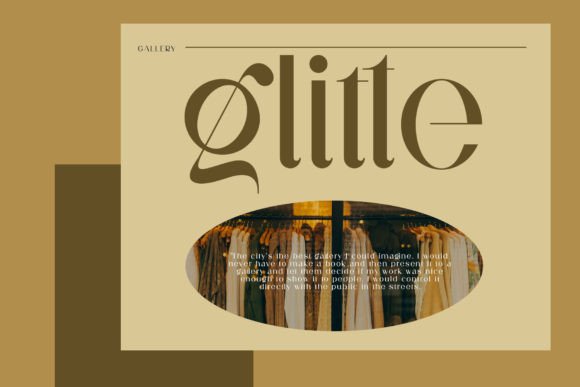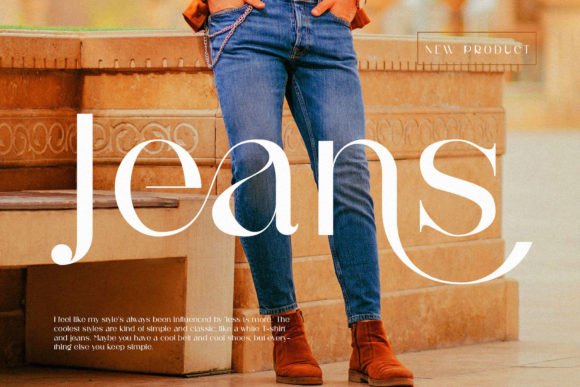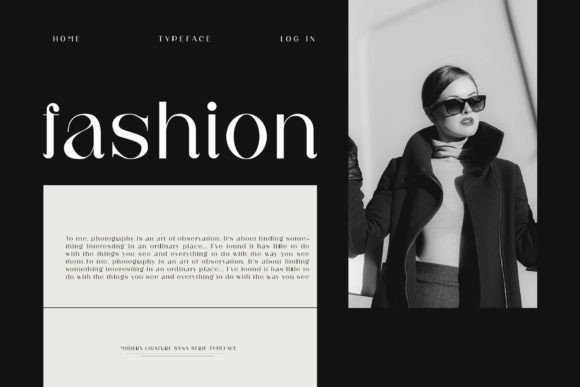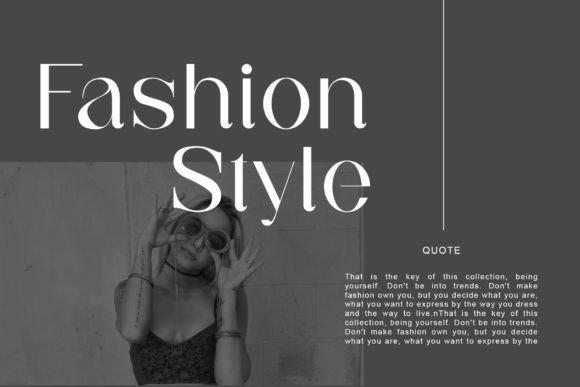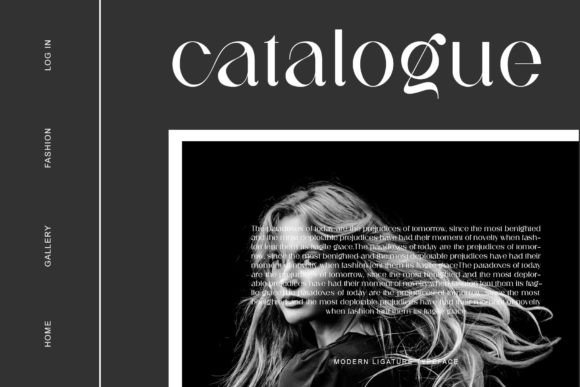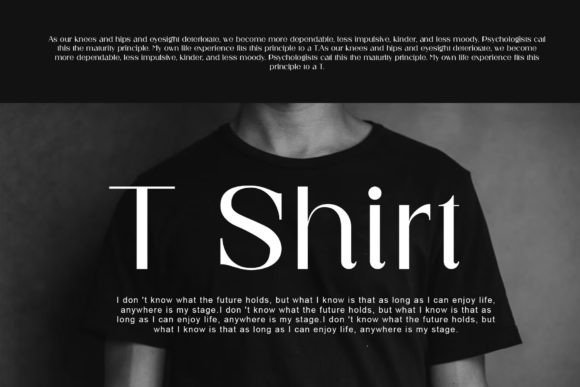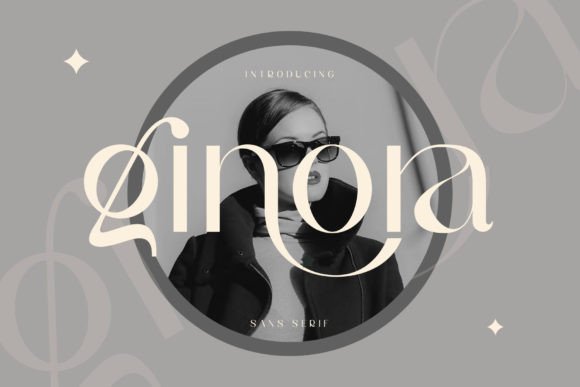
Ginora Font: Elevate Your Designs with Elegance and Class
In the world of typography, a font can make or break a design. For those seeking a touch of elegance, style, class, and modernity, the Ginora Font is an excellent choice. This elegant and classy sans-serif typeface is perfect for designers and crafters looking to elevate their work. In this article, we’ll explore the features and benefits of the Ginora Font and how it can enhance your designs.
A Modern yet Nostalgic Typeface
The Ginora Font is a unique blend of modern and nostalgic elements, making it an excellent addition to any design project. Its sans-serif design ensures a clean and minimalist look, while its classic undertones evoke a sense of timelessness. This font is perfect for designers who want to create a sense of sophistication and refinement in their work.
One of the standout features of the Ginora Font is its versatility. This font works great for a wide range of design projects, including logos, magazines, and social media graphics. Whether you’re creating a brand identity, a publication, or a social media post, the Ginora Font is an excellent choice. Its clean lines and elegant design make it easy to read and visually appealing.
Already Matched Up and Ready to Use
The Ginora Font is already matched up and ready to use, saving you time and effort in your design process. You can easily integrate it into your project and start creating stunning designs. This font is perfect for designers who want to streamline their workflow and focus on creating beautiful designs.
The Ginora Font is specifically designed for designers and crafters who need a touch of elegance, style, class, and modernity in their work. Whether you’re a professional designer or a hobbyist, this font is an excellent addition to your toolkit. With the Ginora Font, you can create stunning designs that showcase your creativity and skill.
Benefits of Using the Ginora Font
- Elegance and Class: The Ginora Font adds a touch of elegance and class to any design project, making it perfect for high-end brands and luxury publications.
- Versatility: This font works great for a wide range of design projects, from logos and magazines to social media graphics.
- Modern and Nostalgic: The Ginora Font blends modern and nostalgic elements, making it a unique and timeless choice.
- Easy to Read: The clean lines and elegant design of the Ginora Font make it easy to read and visually appealing.
Tips for Using the Ginora Font
To get the most out of the Ginora Font, here are some tips to keep in mind:
- Use it as a headline font: The Ginora Font is perfect for headlines and titles, where you want to make a bold statement.
- Pair it with a serif font: Pairing the Ginora Font with a serif font can create a beautiful contrast and add depth to your design.
- Experiment with different colors: The Ginora Font works well with a wide range of colors, so don’t be afraid to experiment and find the perfect combination.
In conclusion, the Ginora Font is an excellent choice for designers and crafters looking to elevate their work with elegance, style, class, and modernity. Its versatility, modern yet nostalgic design, and ease of use make it a valuable addition to any design toolkit. Whether you’re creating a logo, magazine, or social media graphic, the Ginora Font is sure to impress.